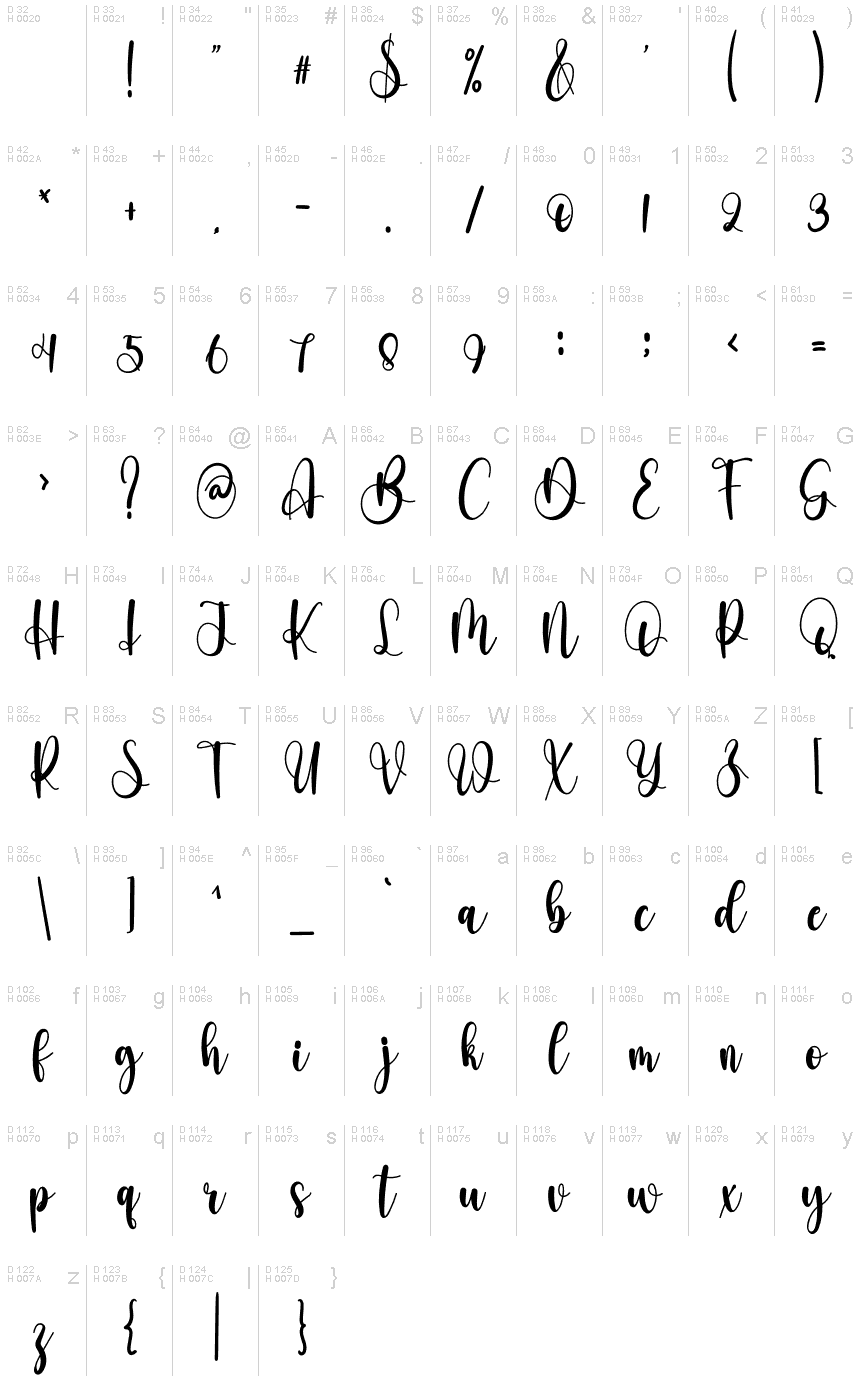
Darling
Darling, a captivating calligraphy font by renowned designer Kateeng Ciu, adds an elegant touch to any project.
Its semi-light weight gracefully balances between delicacy and legibility, making it perfect for wedding invitations, feminine branding materials, or romantic quote designs. With Darling's flowing curves and intricate details, it effortlessly enhances the beauty of handwritten aesthetics. Whether you're designing a sophisticated logo or crafting stunning social media graphics, Darling will breathe life into your creations with its timeless allure.
Let this enchanting font bewitch your audience and leave a lasting impression.
This font retains a classy calligraphic influence while feeling contemporary and fresh. This versatility will attract a wide range of creative ideas, from letterheads and titles to stationery.